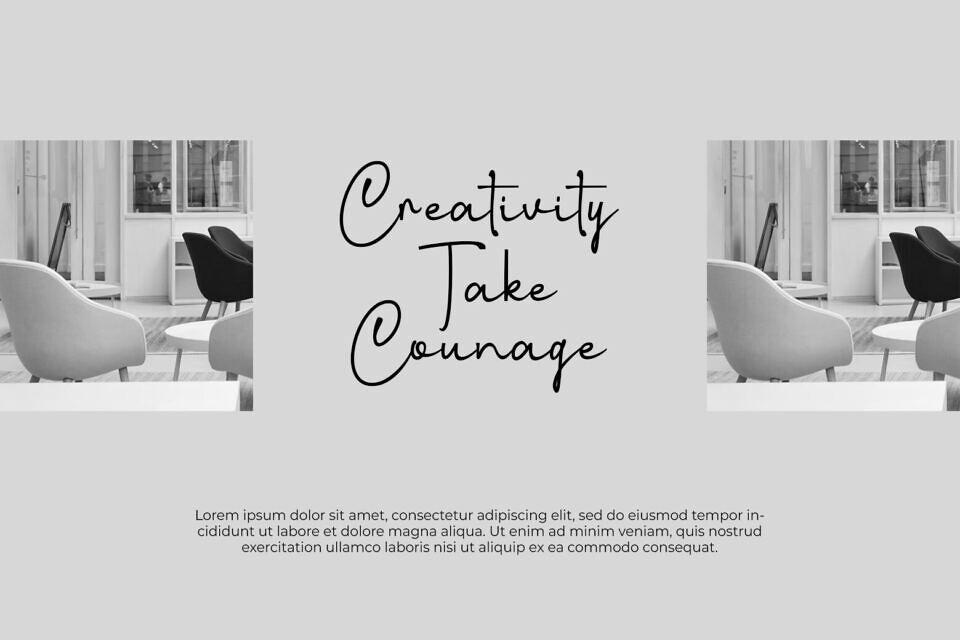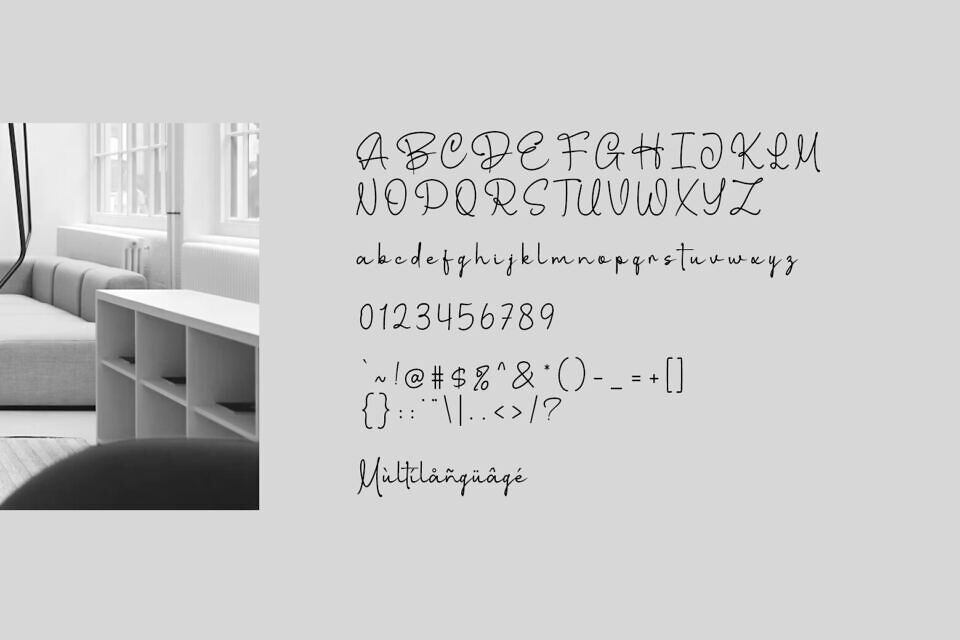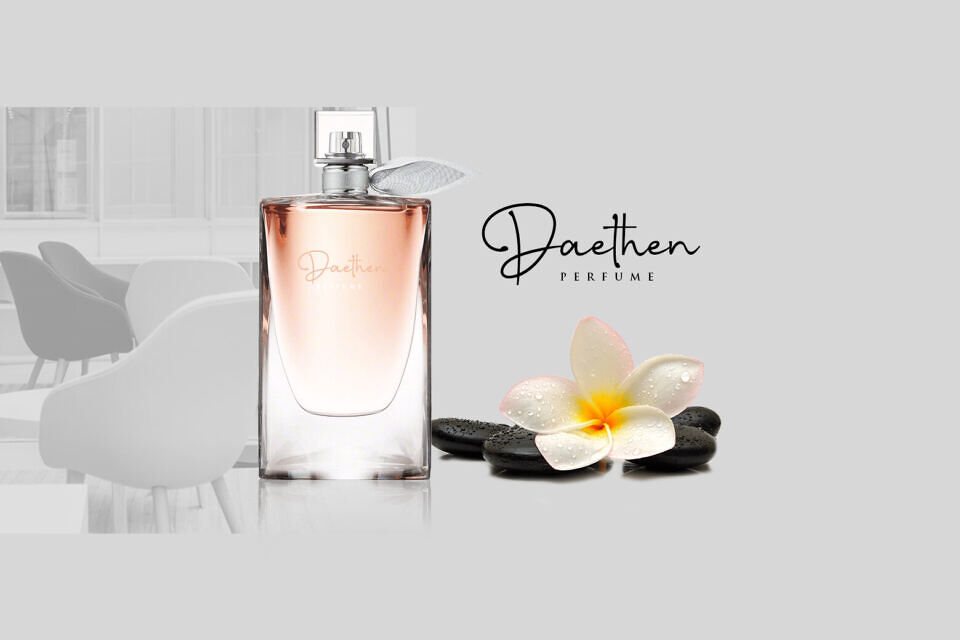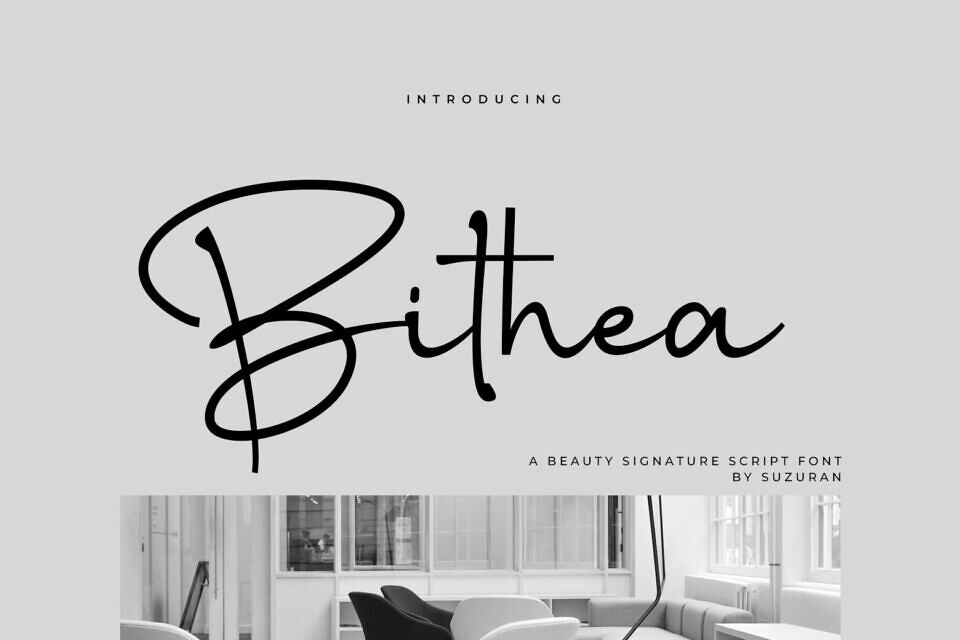
Bithea Font
Bithea is a modern script font with an elegant touch and natural flow, designed to bring a premium feel to every design.
Its smooth and stylish letterforms remain highly legible, making it perfect for logos, branding, product packaging, wedding invitations, social media content, and other commercial projects.